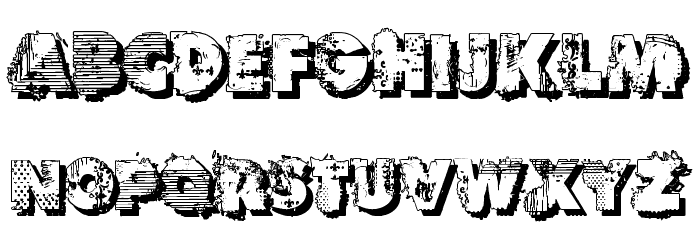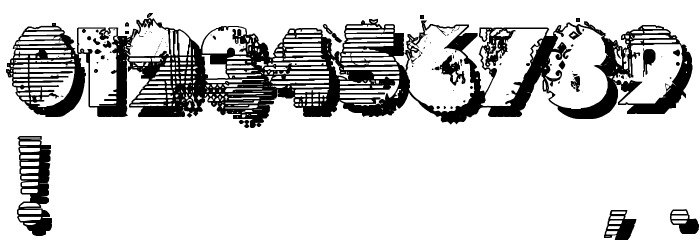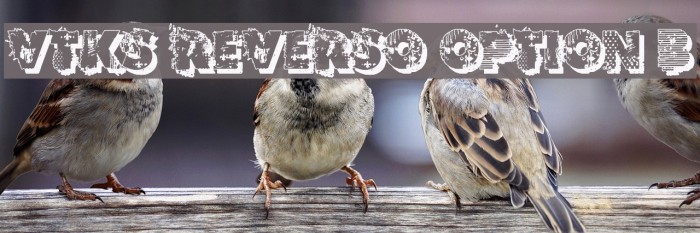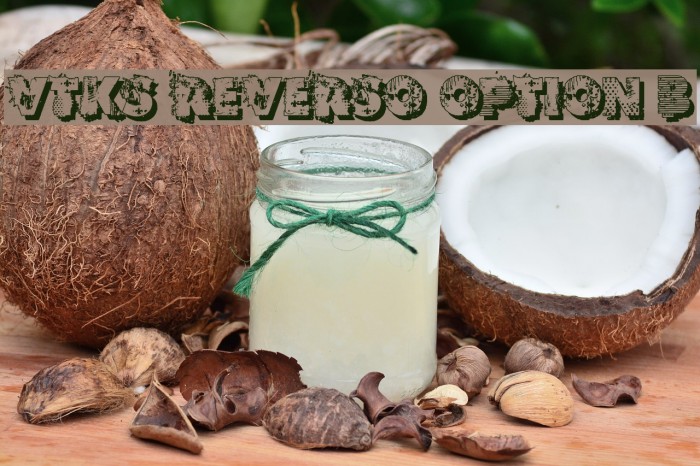
VTKS REVERSO OPTION B Font
This font features a bold and distressed style, with a unique grunge texture that gives it a rugged, worn appearance. The characters are heavily stylized with irregular edges and a shadow effect that adds depth and dimension. The uppercase and lowercase letters maintain a consistent design, while the numbers and special characters follow the same aesthetic, ensuring a cohesive look. The font's boldness and texture make it stand out, ideal for projects that require a strong visual impact.
A bold, distressed font with a grunge texture and shadow effect.
- Proposed Projects: Ideal for posters, album covers, streetwear branding, and any project needing a gritty, urban feel.